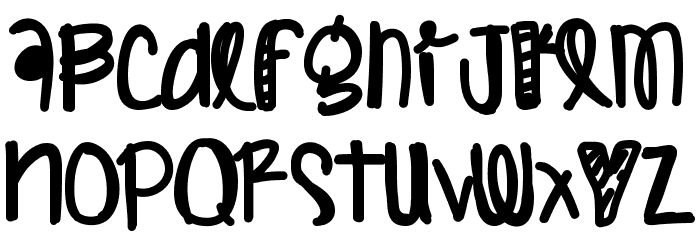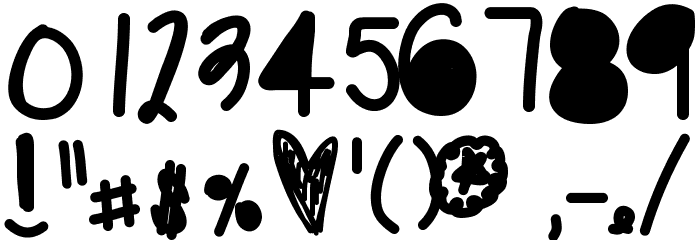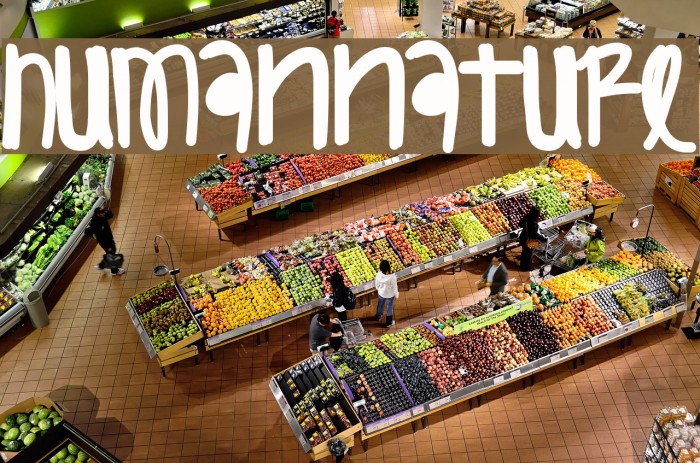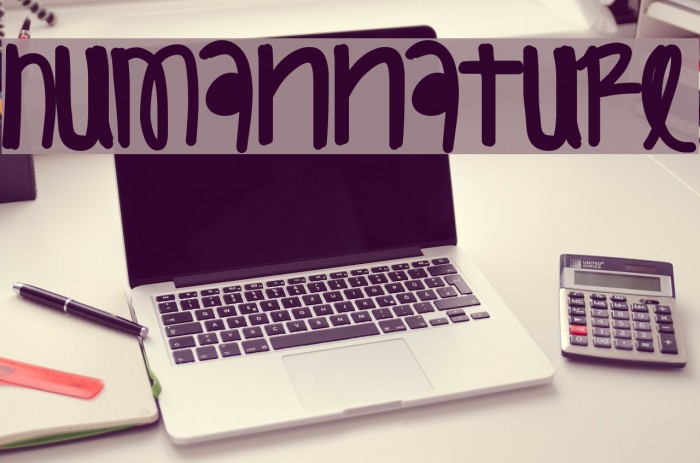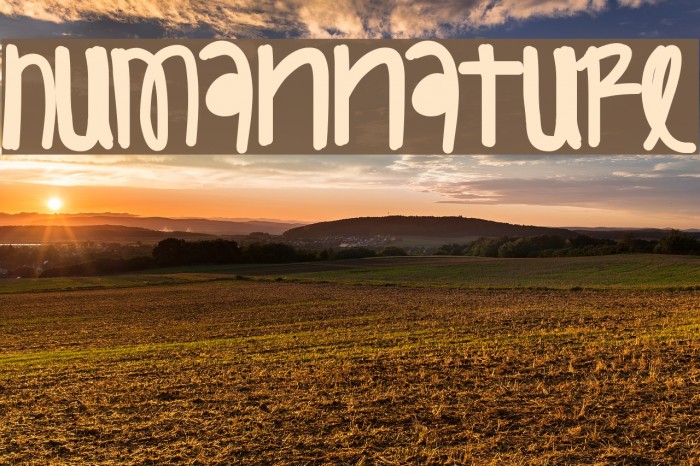
HumanNature Font
This playful and bold font features a hand-drawn aesthetic with a whimsical touch. The letters are characterized by their thick strokes and rounded edges, giving them a friendly and approachable feel. The uppercase and lowercase letters maintain a consistent style, with some letters incorporating unique decorative elements such as dots and stripes. The numbers and special characters follow the same playful design, making the font versatile for various creative projects. Its boldness ensures high visibility, making it suitable for eye-catching designs.
A playful, bold, hand-drawn font with whimsical decorative elements.
- Proposed Projects: Ideal for children's books, playful branding, greeting cards, and creative posters.